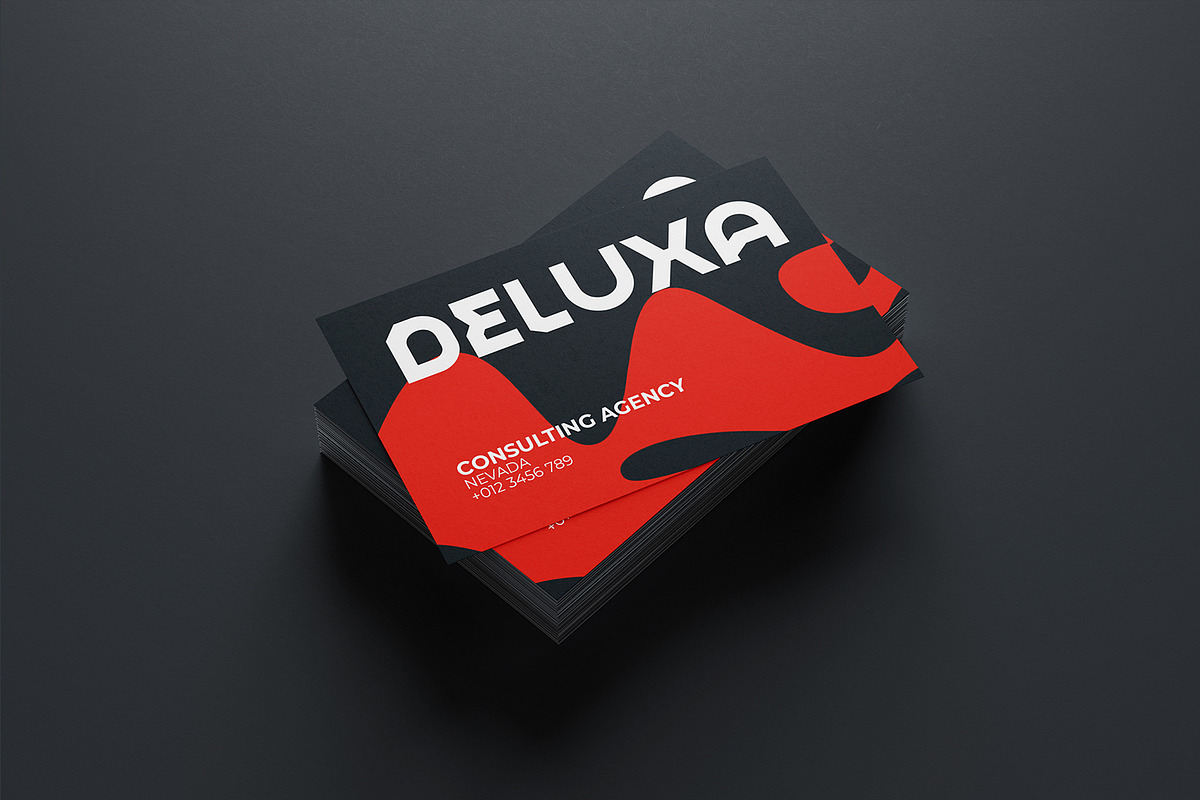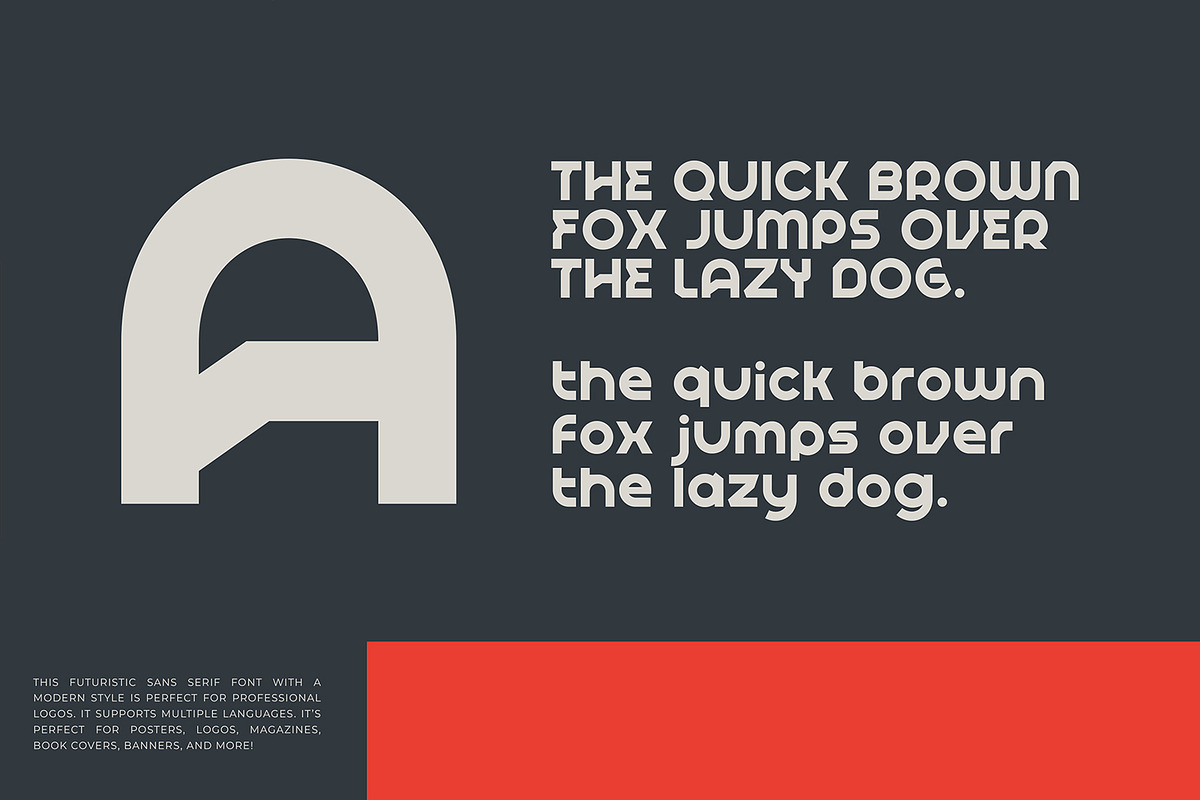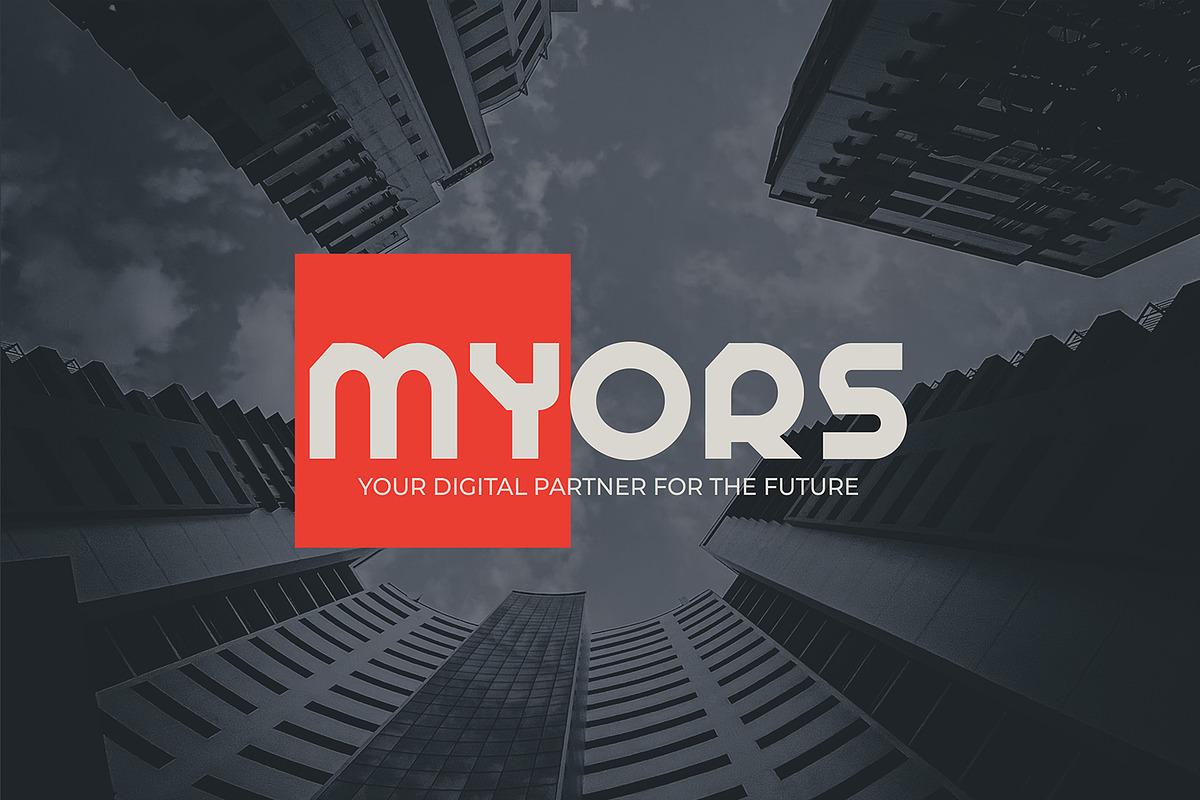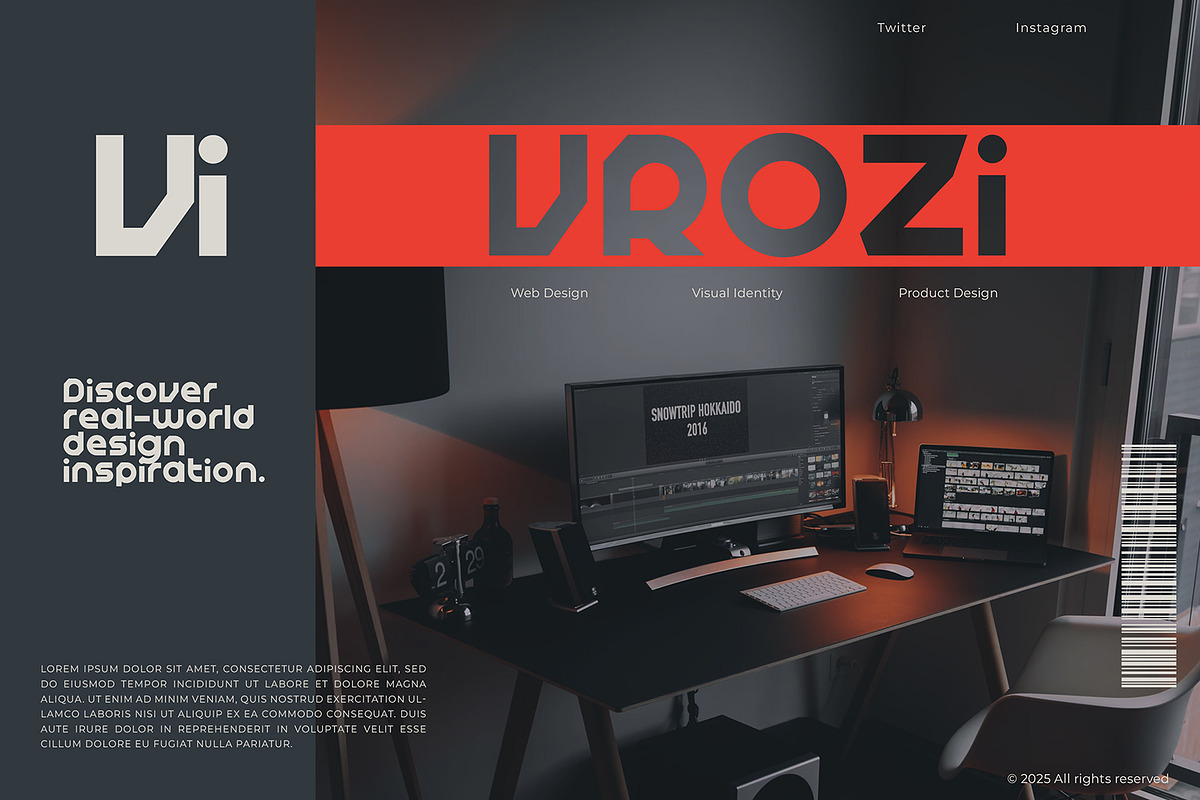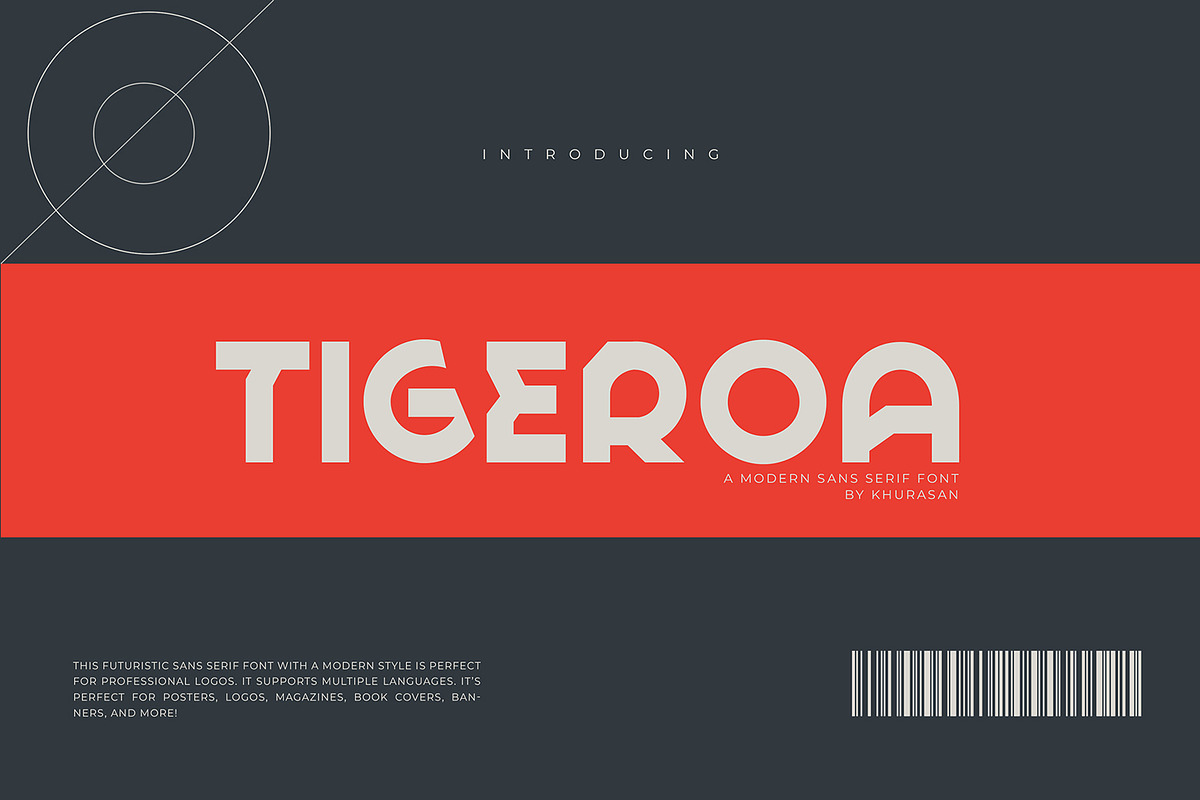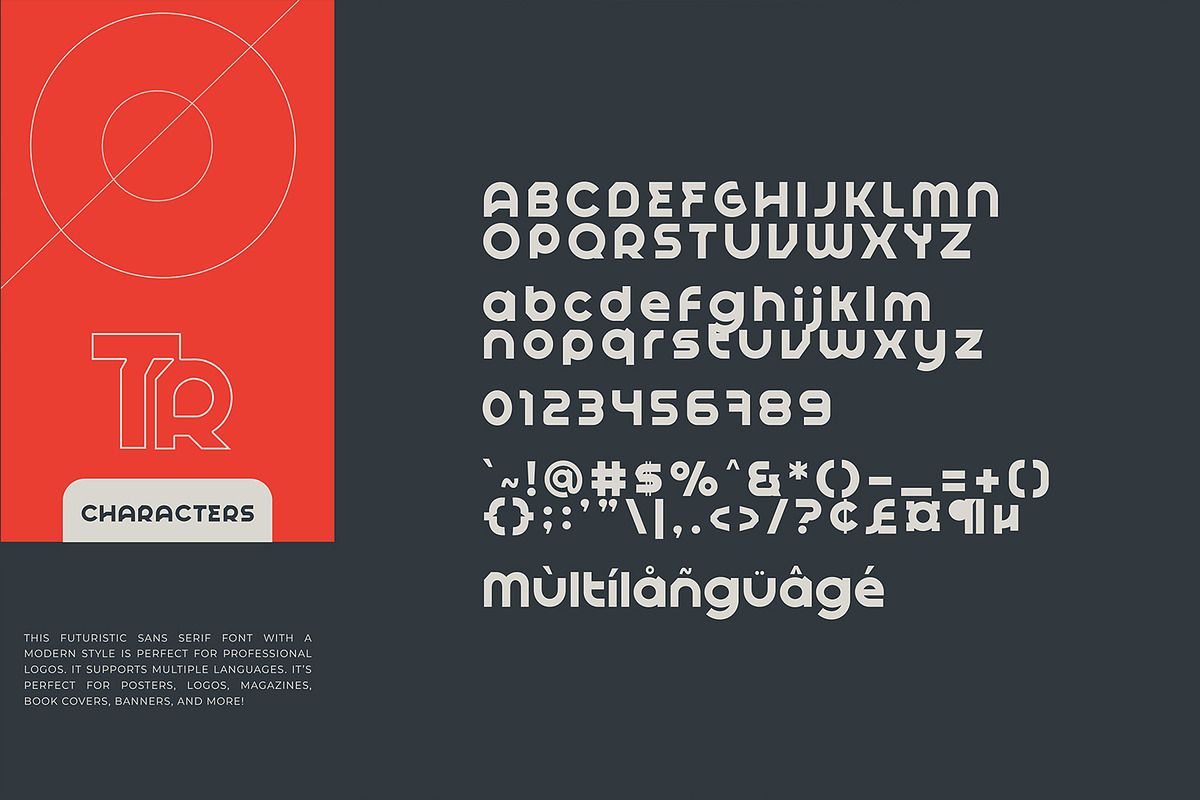
Tigeroa
Tigeroa is a clean and modern sans serif font. The smooth and light execution makes this font look sleek and elegant which is perfect for futuristic branding designs. It can easily be matched to an incredibly large set of projects, so add it to your creative ideas and notice how it makes them stand out!.
Tigeroa font suitable for logo, branding, greeting card, poster and any design that you create.